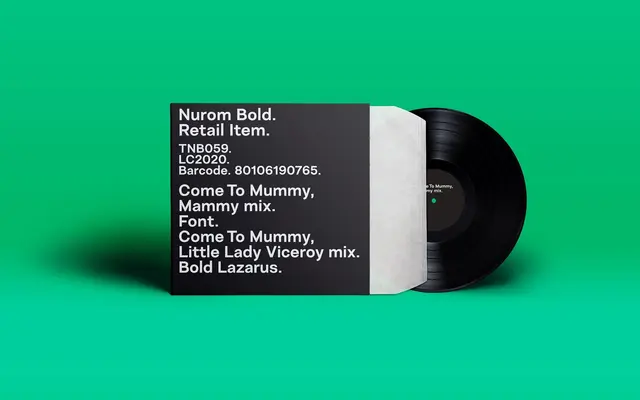
A contemporary grotesque in six weights designed to offer clarity and strength across a broad range of applications without leaning on historical revival.
Nurom draws on the early grotesque tradition, aiming for neutrality and legibility with enough personality to stand apart in a crowded market. Each of the six weights contains over 400 characters with OpenType features including decimal figures, fractions and case-sensitive punctuation. Language support covers Western, Southern and Central European Latin character sets.
Described explicitly as a contemporary Grotesk influenced by early grotesque style, prioritising neutrality and legibility while avoiding direct historical revival.